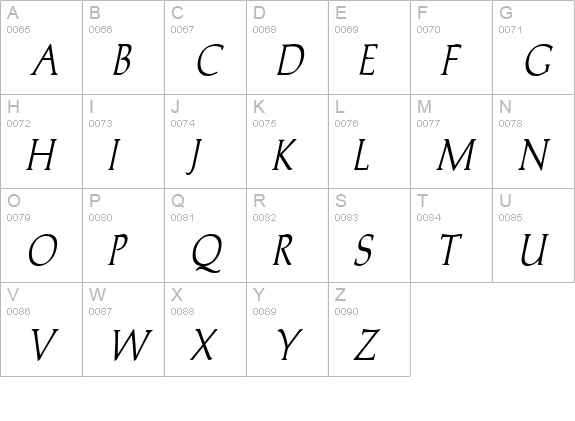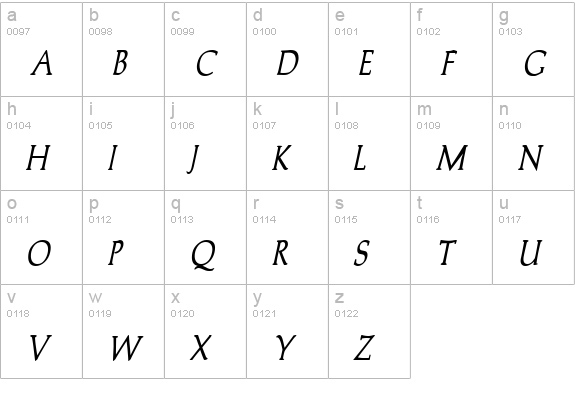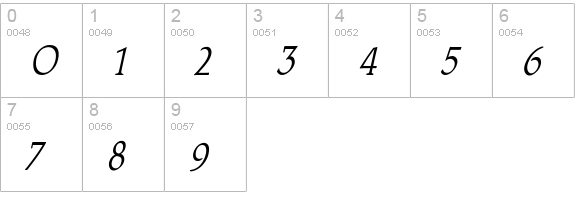
Trajan'sCapsCondensed Bold Italic Font Details
Trajan'sCapsCondensed Bold Italic is a strong, high-contrast, italic variant in the Trajan'sCapsCondensed typeface family \xE2\x80\x94 well suited to headlines, attention-grabbing titles, and strong calls-to-action.
Trajan'sCapsCondensed Bold Italic font is a visually striking and elegant typeface that exudes a sense of timeless refinement and sophistication. Its bold and italicized characters add a touch of flair and uniqueness to any design project, making it perfect for headlines, titles, logos, and other attention-grabbing elements. With its condensed form, Trajan'sCapsCondensed Bold Italic font allows for more text to fit into limited spaces without compromising legibility or style. Each letter is meticulously crafted with precision and attention to detail, resulting in a harmonious balance between the thick and thin strokes. This font possesses a commanding presence that demands attention, yet it remains effortlessly readable, making it suitable for a wide range of applications. Whether used in print or digital media, Trajan'sCapsCondensed Bold Italic font adds a touch of professionalism and refinement to any project. What makes this font even more appealing is that it is freely available to download at FontsMarket.com. This means that you can access and utilize the beauty and versatility of Trajan'sCapsCondensed Bold Italic font without any limitations or cost. It's an opportunity to enhance your designs with a high-quality typeface that will elevate your creations to a whole new level. Don't miss out on the chance to incorporate Trajan'sCapsCondensed Bold Italic font into your design arsenal. Download it for free from FontsMarket.com and let your creativity soar. Whether you're designing a magazine layout, creating a stunning website, or producing eye-catching advertisements, this font will undoubtedly leave a lasting impression on your audience. Embrace the boldness, elegance, and versatility of Trajan'sCapsCondensed Bold Italic font today.